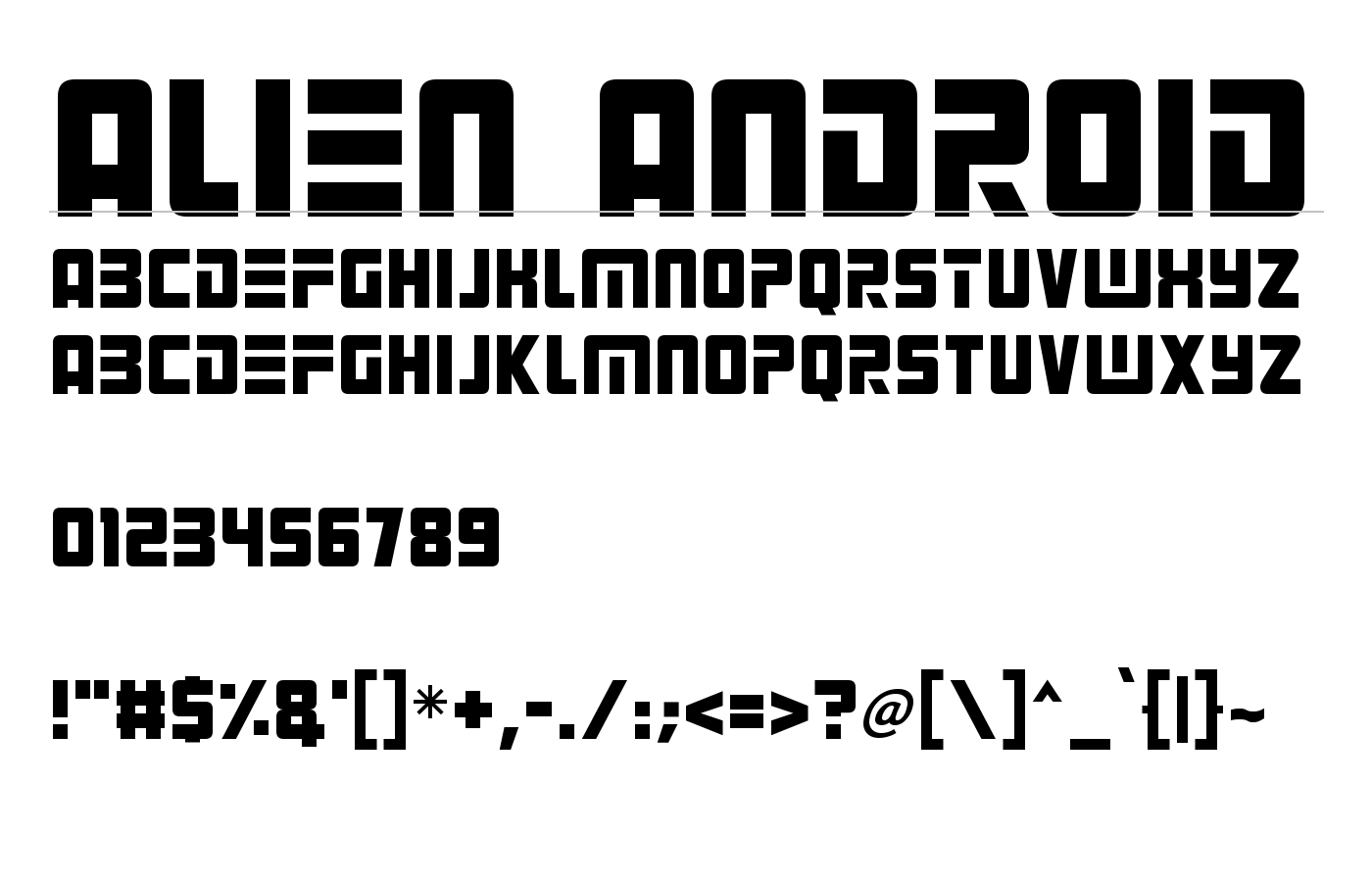
Alien Android is a bold, geometric sans serif font with a futuristic, tech-inspired design that features uniform stroke weights and squared-off edges. Its compact, blocky letterforms and machine-like character shapes make it ideal for digital, science fiction, and technology-themed branding or headlines. This font works best in logos, posters, and other display uses where a modern, robotic vibe is needed.
Alien Android Font
About Alien Android Font